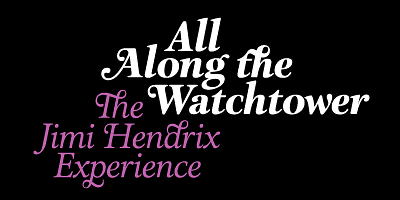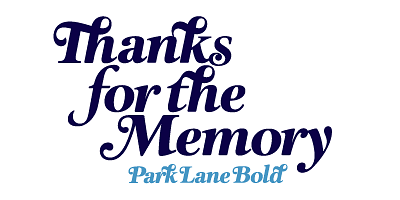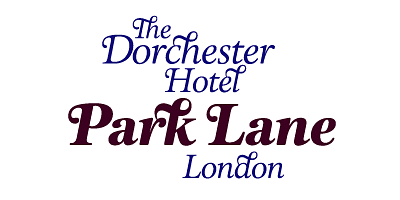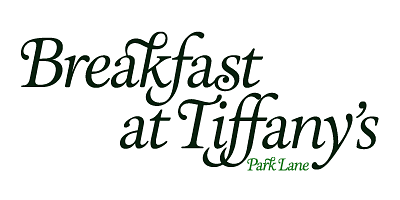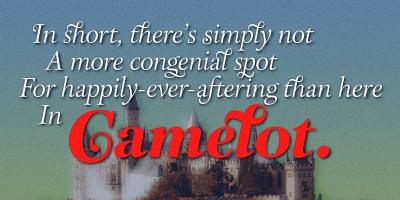
A Classic Italic Roman with a set of alternative swash caps and a number of original swash lower case charactures that can create a number of unusual ligatures when connecting to the preceding characters. Available in two weights Light and Bold.
Alan Meeks